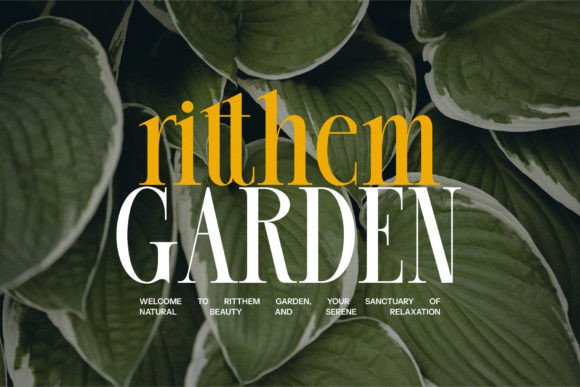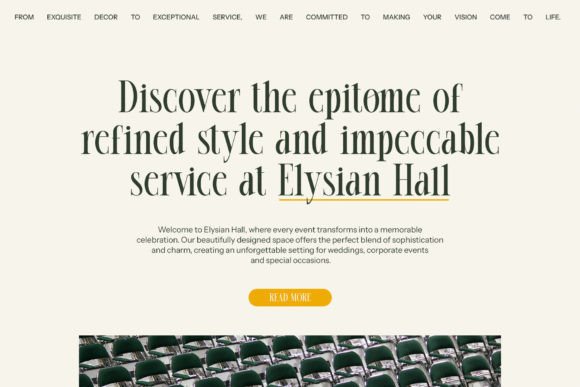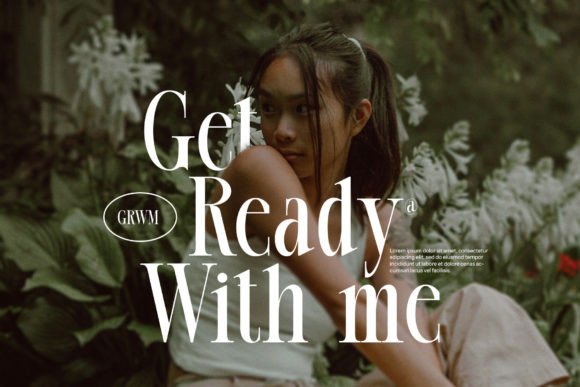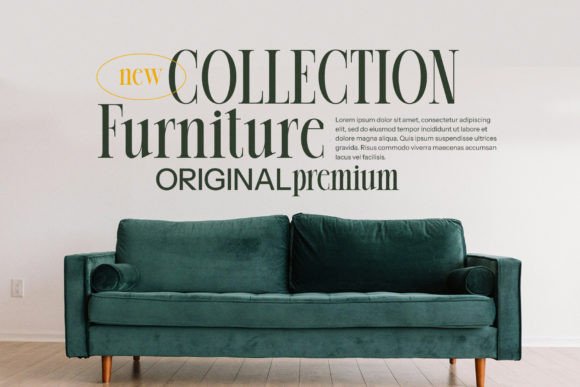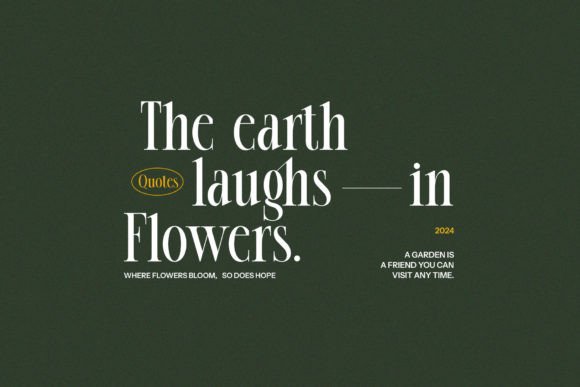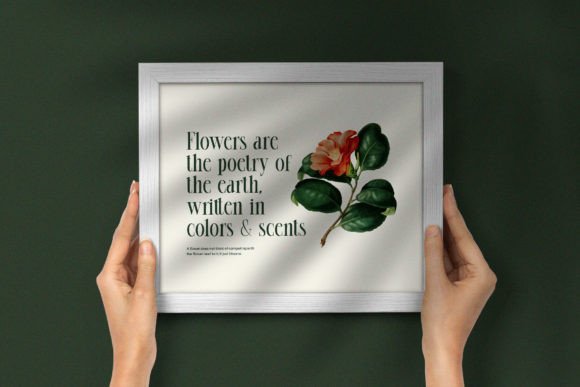
Firglen Font: Elevate Your Designs with Elegance and Sophistication
In the world of typography, a font can make or break a design. For designers and crafters looking to add a touch of elegance and sophistication to their projects, Firglen Font is an excellent choice. This stylish and graceful serif font is perfect for creating visually stunning headlines, logos, invitations, and more.
The Characteristics of Firglen Font
Firglen Font boasts clean lines and a classic look that exudes timelessness. Its serif design adds a level of sophistication, making it ideal for projects that require a touch of luxury. The letters are easy to read, ensuring that your message is conveyed clearly and effectively. Whether you’re working on a branding project, creating wedding invitations, or designing a logo, Firglen Font is a versatile choice that can adapt to various design needs.
Why Choose Firglen Font?
There are several reasons why Firglen Font stands out from the crowd:
• Elegance and Sophistication: Firglen Font’s classic design and clean lines make it perfect for adding a touch of elegance to any project.
• Readability: The font’s clear and concise lettering ensures that your message is easily readable, making it ideal for body text and headlines.
• Versatility: Firglen Font can be used for a wide range of projects, from branding and advertising to wedding invitations and logos.
• Timeless Appeal: Unlike trendy fonts that may quickly go out of style, Firglen Font’s classic design ensures that your project will remain stylish for years to come.
Using Firglen Font in Your Designs
Firglen Font is incredibly versatile and can be used in various design projects. Here are a few ideas to get you started:
• Wedding Invitations: Add a touch of elegance to your wedding invitations with Firglen Font. Its classic design and clean lines make it perfect for formal wedding stationery.
• Branding and Logo Design: Create a sophisticated brand identity with Firglen Font. Its timeless appeal ensures that your logo will remain stylish for years to come.
• Headlines and Titles: Use Firglen Font to create stunning headlines and titles for your blog posts, articles, and social media graphics.
• Packaging Design: Add a touch of luxury to your packaging design with Firglen Font. Its elegant design makes it perfect for high-end product packaging.
Tips for Getting the Most Out of Firglen Font
To get the most out of Firglen Font, here are a few tips to keep in mind:
• Pair with Other Fonts: Experiment with pairing Firglen Font with other fonts to create a unique and visually appealing design.
• Adjust Font Sizes: Play around with different font sizes to create visual hierarchy and add emphasis to your design.
• Use Colors Wisely: Choose colors that complement Firglen Font’s classic design. Neutral colors like black, white, and gray work well, but you can also experiment with bold colors to add a pop of personality.
Firglen Font is a stylish and elegant serif font that’s perfect for adding a touch of sophistication to any design. Its clean lines, classic look, and easy readability make it a versatile choice for various projects. Whether you’re a designer or crafter, Firglen Font is an excellent addition to your typography collection. With its timeless appeal and versatility, Firglen Font is sure to elevate your designs and help you create visually stunning projects that leave a lasting impression.